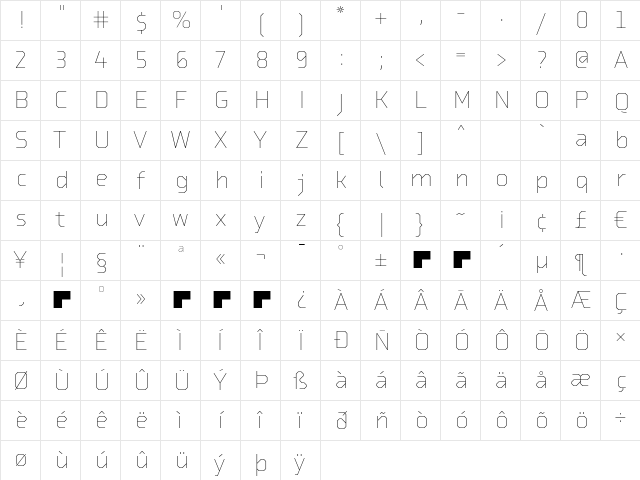
Lingua Light
| Foundry | Eric Olson |
| Designer | Eric Olson |
Design Context for Lingua Typeface
Lingua takes a measured approach to typography — its balanced proportions and neutral character make it a reliable workhorse for both digital and print work. The delicate stroke weight brings airiness and refinement to layouts.